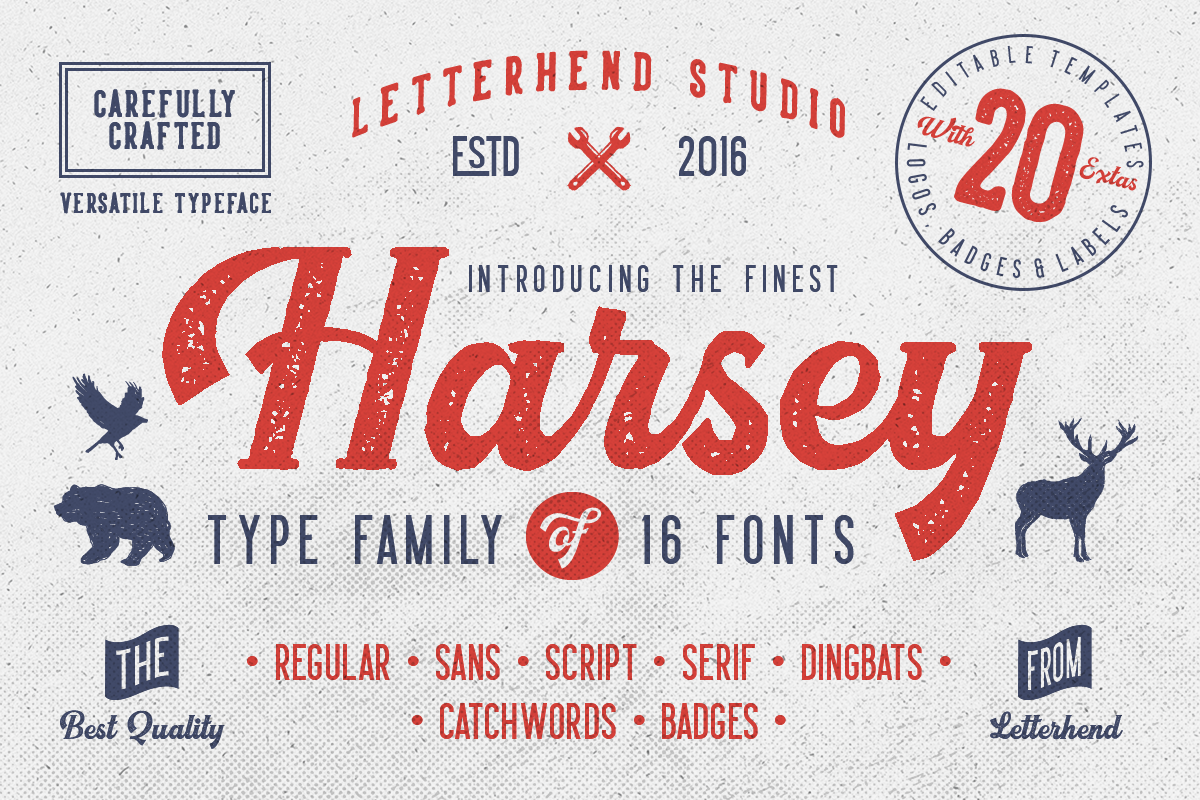
Harsey Type ToolBox (16 FONTS) Free Download is a comprehensive collection of versatile fonts designed to elevate your creative projects. With 16 different font styles, this toolbox offers everything you need for various design applications, including logos, branding, websites, and more. From modern sans serifs to elegant scripts, Harsey Type ToolBox ensures you have the right font for every project.